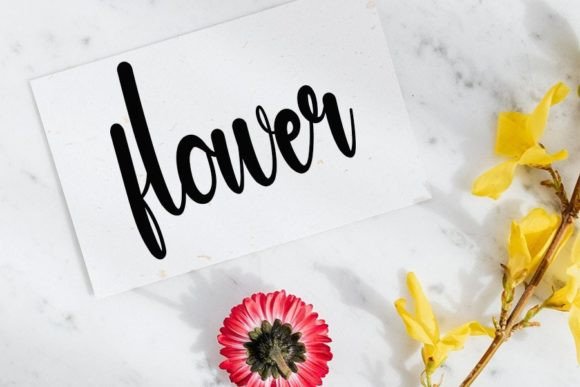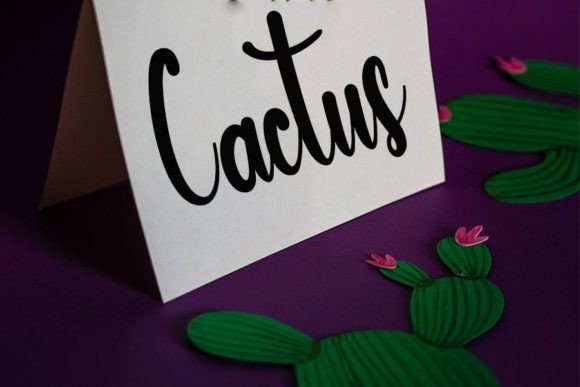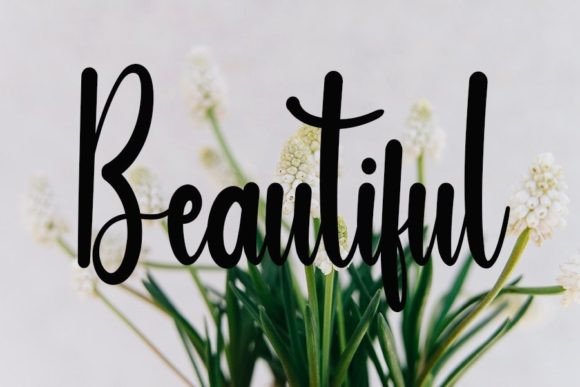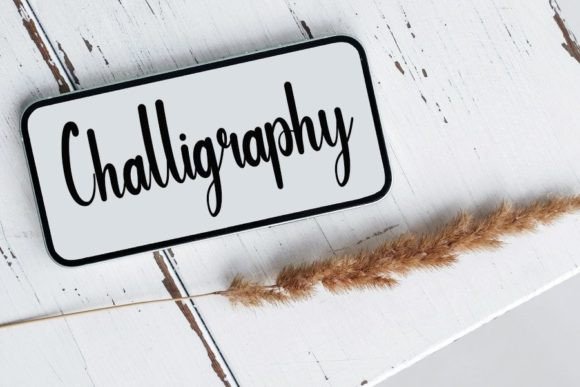
“**Butterfly**” sounds like a neat and beautiful handwritten font with an elegant touch, making it an ideal choice for a variety of creative projects. Its distinct and timeless style suggests that it can bring a classic and enduring quality to your designs.
The elegance of “Butterfly” makes it suitable for a range of applications, from branding and logos to invitations, stationery, and other design projects. Handwritten fonts with an elegant touch often add a sense of sophistication and personalization to the visual elements they are applied to.
Consider incorporating “Butterfly” into your design toolkit for your favorite projects, exploring its distinct and timeless qualities. Whether you’re working on a stylish logo or crafting a beautifully designed invitation, “Butterfly” seems poised to bring an elegant and timeless flair to your typography.
Fonts like “Butterfly” can play a crucial role in creating visually appealing and memorable designs. Enjoy utilizing “Butterfly” in your creative endeavors, and may it bring an enduring and elegant touch to your most imaginative projects!